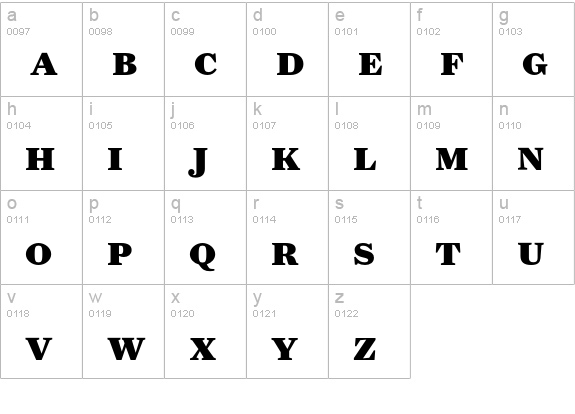
FarnhamDisplay-BlackSC font is a stunning and bold typeface that commands attention with its strong presence and elegant design. Perfect for headlines, logos, and other display purposes, this font exudes sophistication and style. Its sharp serifs and distinctive letterforms make it a standout choice for any project that requires a touch of class. The best part? FarnhamDisplay-BlackSC font is completely free to download at FontsMarket.com. You can elevate your designs without breaking the bank by accessing this high-quality font for your creative projects. Don't miss out on the opportunity to enhance your work with this exceptional typeface. Download FarnhamDisplay-BlackSC font today and see the difference it can make in your design endeavors.